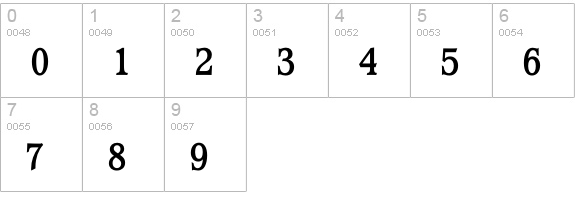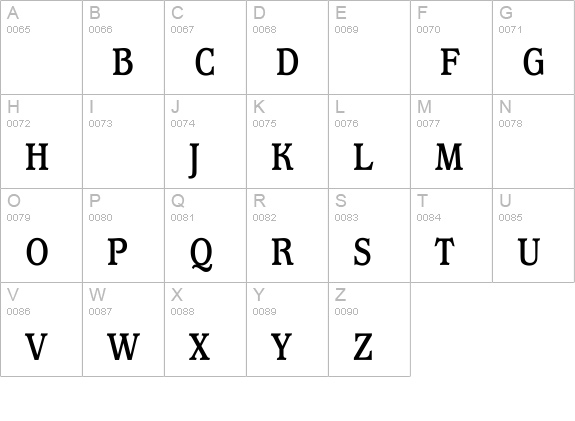
WaverlyBoldCondensed Font Details
Introducing WaverlyBoldCondensed, a sleek and modern font that exudes confidence and sophistication. With its condensed design, this typeface captures attention and makes a bold statement in any project. This font is perfect for headlines, titles, and any other text that requires a strong visual impact. WaverlyBoldCondensed features clean lines and sharp edges, giving it a contemporary and professional look. Its versatility makes it suitable for a wide range of design applications, from branding and advertising to packaging and web design. Whether you're working on a logo, a poster, or a website, this font will elevate your project and leave a lasting impression. What sets WaverlyBoldCondensed apart is its ability to convey a sense of strength and elegance simultaneously. It strikes the perfect balance between being commanding and refined, making it ideal for projects that require a touch of sophistication. This font is sure to captivate your audience and enhance the overall aesthetic of your design. One of the best things about WaverlyBoldCondensed is that it is freely available to download at FontsMarket.com. This means that you can easily access this remarkable font and incorporate it into your projects without any cost. FontsMarket.com offers a vast collection of high-quality fonts, and WaverlyBoldCondensed is just one of the many gems waiting to be discovered. So, if you're looking for a font that combines strength, elegance, and affordability, look no further than WaverlyBoldCondensed. Download it today from FontsMarket.com and elevate your design to new heights.